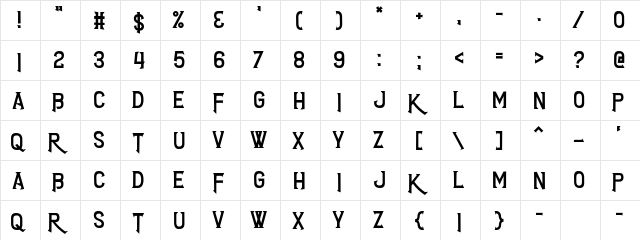
Frostbite Boss Fight Regular
Design Context for Frostbite Boss Fight Typeface
Frostbite Boss Fight is a composed and adaptable typeface that performs quietly and consistently across a wide range of design contexts.
Pro Tip: Use Frostbite Boss Fight in both headline and body roles to test its range before committing to a single application.